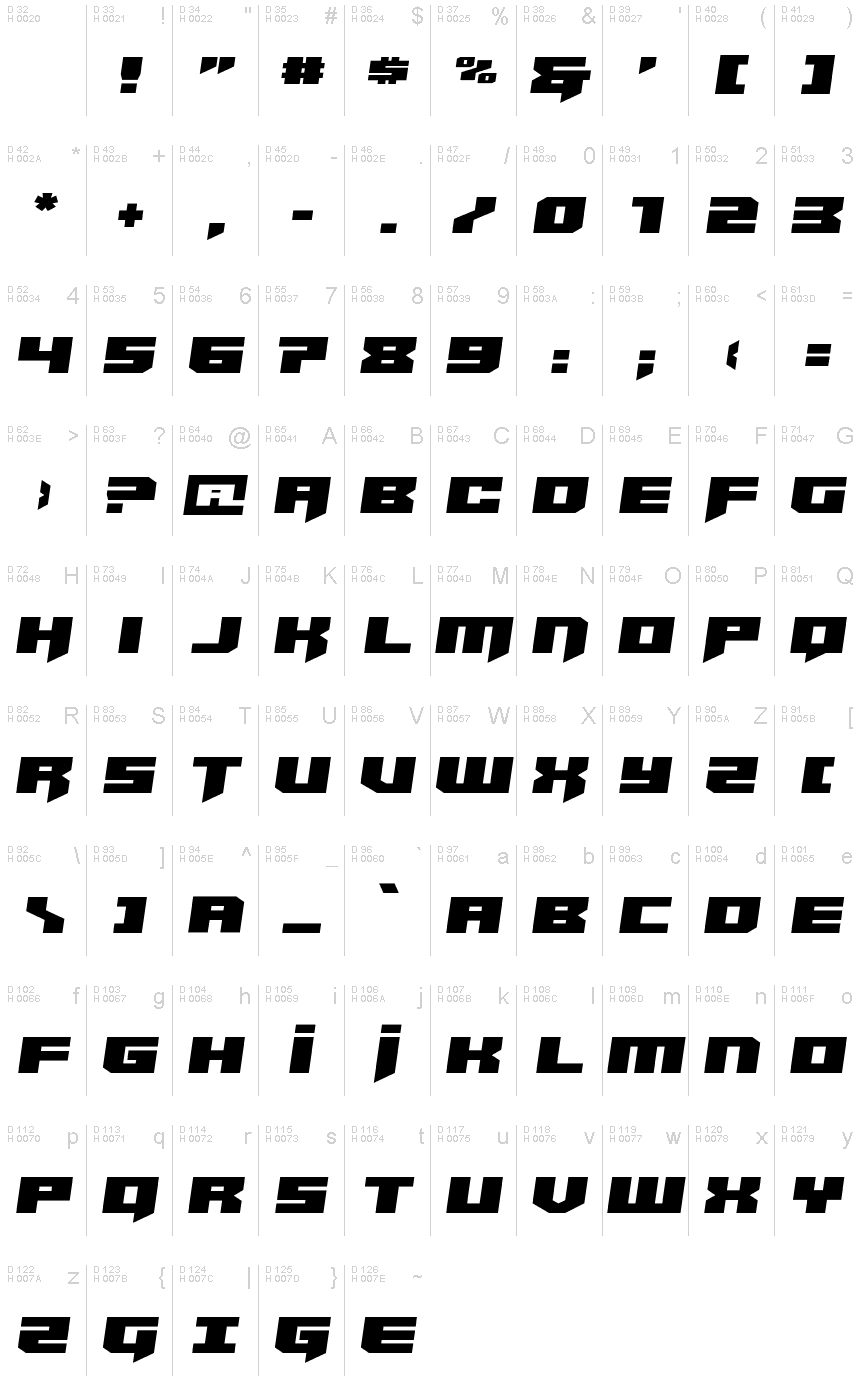
Bridge OFFicer Slight Straight
Bridge Officer Slight Straight emerges as a commanding presence in the display font arena, courtesy of the creative minds at Iconian Fonts. This member of the Bridge Officer family boasts an extra-bold weight paired with an extra-expanded width, giving it a robust and assertive character that demands attention. Its techno style exudes a contemporary vibe that is both sleek and precise, making it an excellent choice for projects looking to convey strength and modernity.
The aesthetic appeal of Bridge Officer Slight Straight lies in its clean lines and geometric form, which lend themselves to high-impact visuals across various mediums. Whether used for headlines on digital platforms or emblazoned across print materials, this font provides clarity and readability while maintaining its stylistic edge.
Ideal for creative endeavors that require a touch of futurism or industrial chic, Bridge Officer Slight Straight is well-suited for branding, advertising campaigns, poster design, and any application where a strong typographic statement is essential. Its distinctive look ensures that any message stands out with confidence and style.
The aesthetic appeal of Bridge Officer Slight Straight lies in its clean lines and geometric form, which lend themselves to high-impact visuals across various mediums. Whether used for headlines on digital platforms or emblazoned across print materials, this font provides clarity and readability while maintaining its stylistic edge.
Ideal for creative endeavors that require a touch of futurism or industrial chic, Bridge Officer Slight Straight is well-suited for branding, advertising campaigns, poster design, and any application where a strong typographic statement is essential. Its distinctive look ensures that any message stands out with confidence and style.